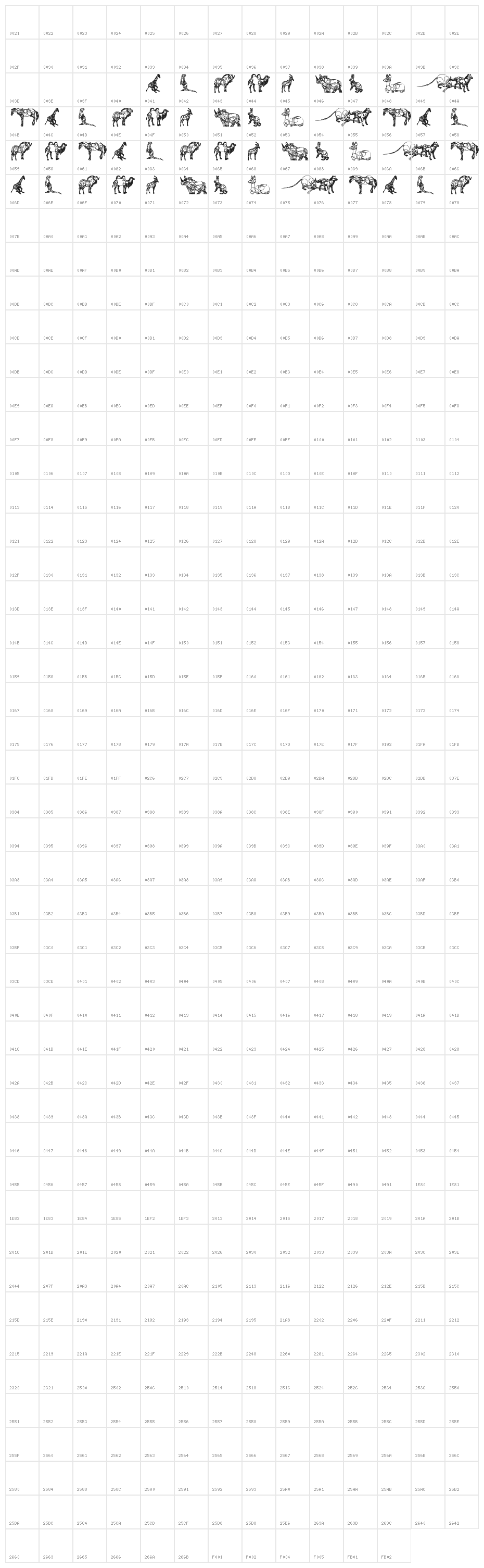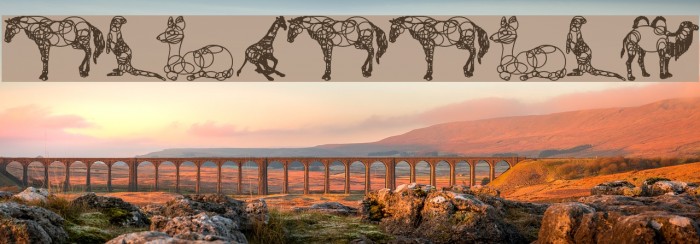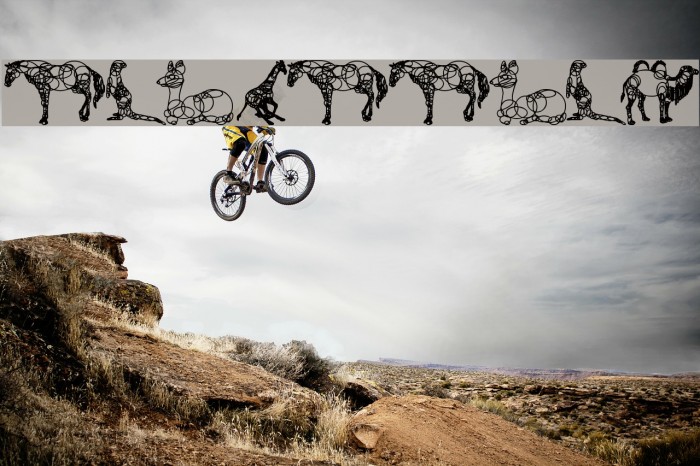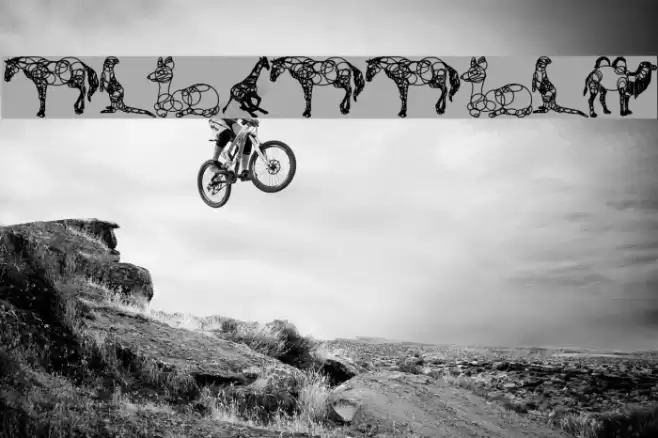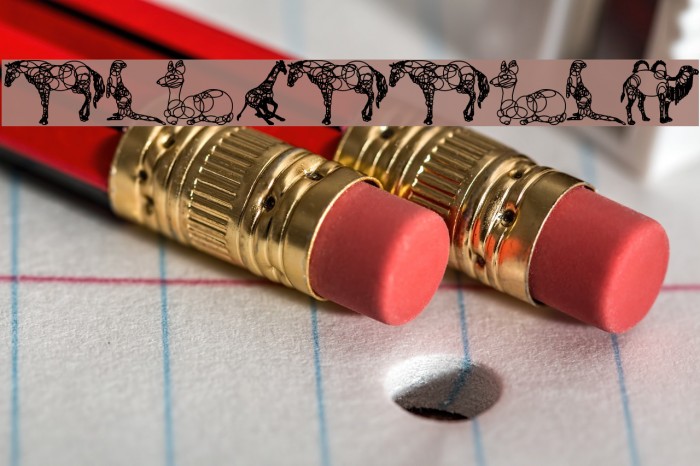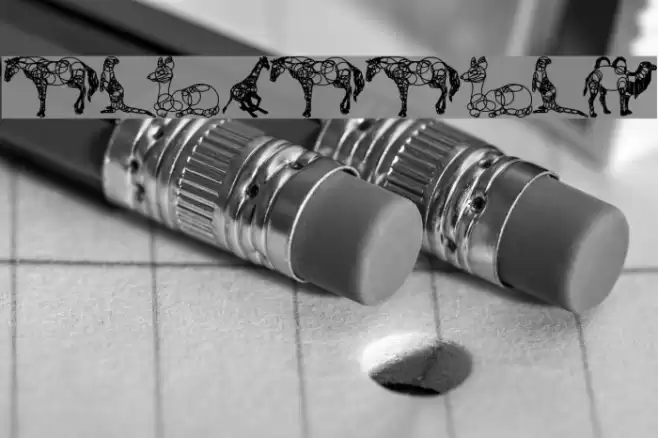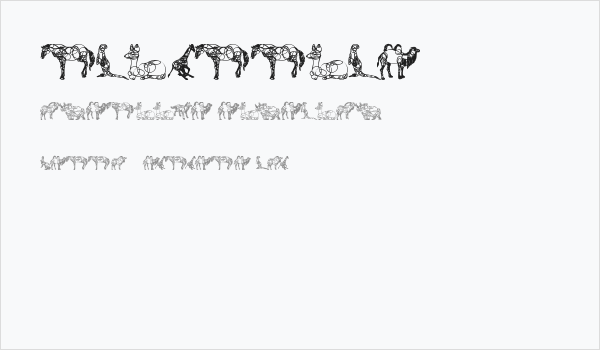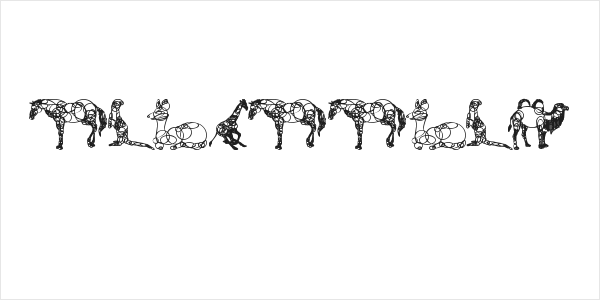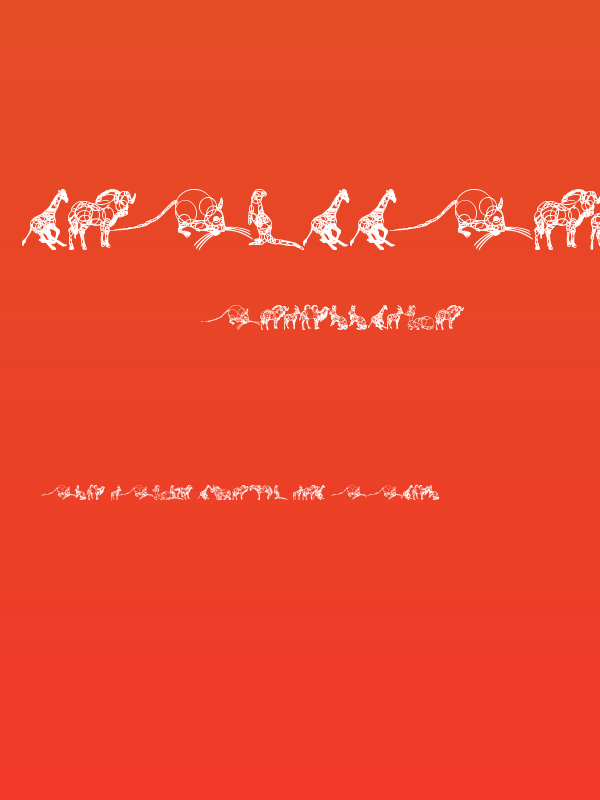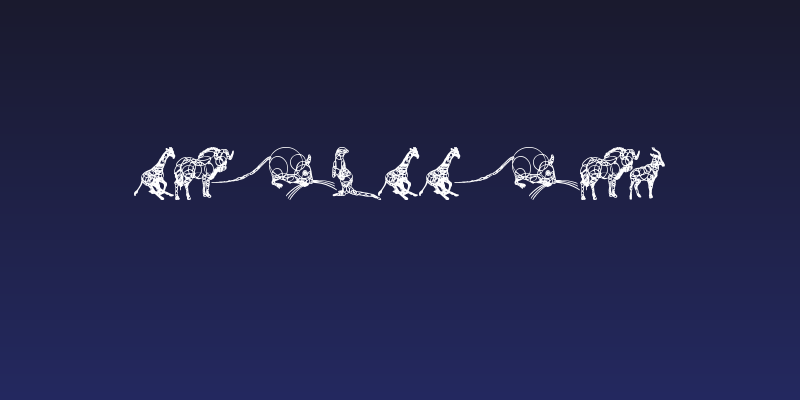
animaline Font
animaline Description
This unique and whimsical font features a series of interconnected animal illustrations forming each letter and character. The design is highly decorative, with each character composed of intricate line art depicting various animals in playful poses. The font is not meant for traditional text but rather as a creative and artistic representation of the alphabet and numbers. Each character is distinct, with a continuous line connecting the animals, creating a sense of movement and flow. The style is imaginative and artistic, making it suitable for projects that require a touch of creativity and fun.
| Use Case | Logos, Artistic projects, Creative displays |
| Proposed Projects | Ideal for children's books, playful branding, creative posters, and artistic projects. |